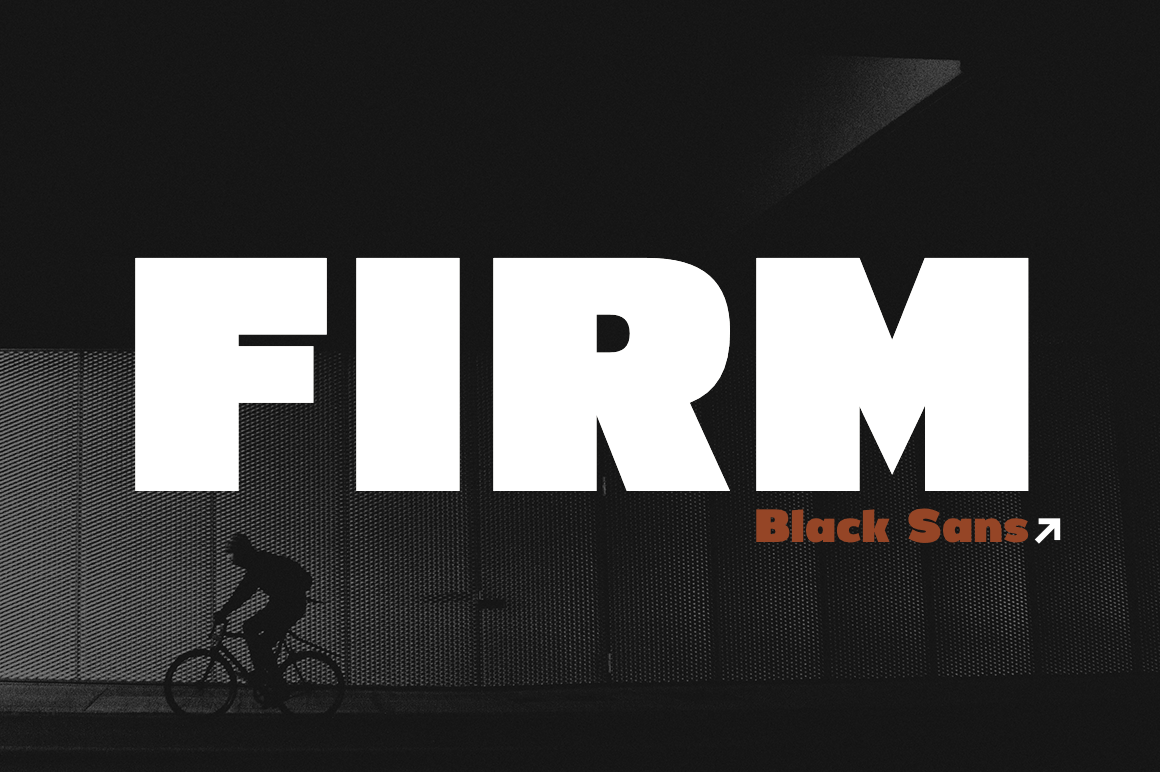
Firm Font
Firm Font is perfect for professional law firm branding, corporate consulting identities, financial institution communications, executive business materials, formal documentation design, authoritative web typography, professional service marketing, and established business advertising campaigns. This resolute typeface works exceptionally well in both digital applications and print media where unwavering professionalism and institutional credibility are fundamental design requirements.
What makes Firm Font so exciting is its steadfast interpretation of professional authority through solid letterforms that embody the same unwavering reliability and established competence that clients expect from trusted professional services. The font features stable characters with institutional proportions, confident spacing, and authoritative details that communicate expertise, dependability, and the proven track record of successful professional practice. Its resolute personality and business heritage make it ideal for established firms seeking to reinforce their professional reputation while appealing to clients who value experience, competence, and the assurance of working with proven experts.
The Firm Font family includes comprehensive weight variations from regular to bold, along with matching italic styles and professional alternates. Each style maintains the typeface's authoritative character while offering extensive multilingual support, professional numerals, business-focused punctuation marks, and special characters designed to enhance corporate communications and established branding efforts across global professional markets.
This remarkable typeface represents the perfect convergence of professional tradition and contemporary business functionality for service and consulting industries. Whether you're developing law firm identities, creating corporate consulting materials, or designing financial service communications, Firm Font Free Download delivers the institutional credibility and versatility needed for successful professional relationships. The font's established aesthetic makes it particularly effective for legal practices, consulting firms, financial advisors, and organizations emphasizing experience, reliability, and the proven competence of professional expertise.
The meticulously crafted professional construction and optimized business performance in Firm Font ensure maximum institutional authority while maintaining clear communication across all corporate applications. Its resolute presence makes it ideal for professional branding, corporate marketing materials, and business communications where its full firm character can create lasting confidence with clients seeking established expertise and the security of working with proven professional organizations.